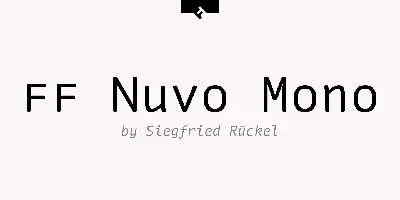
FF Nuvo Mono Font is ideal for code editors, programming interfaces, technical documentation, data visualization, terminal applications, scientific publications, and digital design projects. This professional monospace typeface excels in applications requiring precise character alignment and optimal readability.
FF Nuvo Mono Font is exciting because it revolutionizes monospace typography with its carefully balanced letterforms that maintain perfect spacing while delivering exceptional clarity and reduced eye strain during extended coding sessions and technical work.
The FF Nuvo Mono Font family includes multiple weights from Light to Bold, each maintaining consistent monospace spacing while providing visual hierarchy options. This comprehensive collection ensures optimal performance for complex technical typography requirements.
FF Nuvo Mono Font provides access to FontFont's expertly crafted monospace typeface designed specifically for modern technical and programming applications. This sophisticated font features meticulously engineered letterforms with optimal character spacing and proportions that ensure exceptional legibility in code environments. The typeface showcases carefully balanced stroke weights and distinctive character shapes that enhance code readability while reducing visual fatigue during long programming sessions. Its professional design makes it particularly suitable for development environments, technical documentation, and data-heavy applications where precision and clarity are paramount. FF Nuvo Mono Font delivers consistent performance across different screen resolutions and sizes, making it an excellent choice for cross-platform development tools. The font's technical excellence and refined aesthetic ensure professional results that improve both productivity and user experience in technical computing environments.